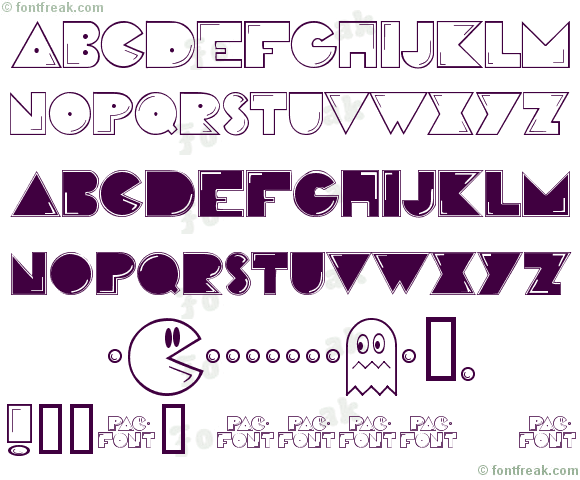
PacFont
About Pacfont
Pacfont, crafted by Font-a-licious Fonts, is a unique display font that effortlessly combines a playful aesthetic with a distinctive retro vibe. Released in 1998, this freeware typeface is characterized by its bold, rounded letterforms that evoke a sense of fun and nostalgia. The stroke weight is consistent throughout, providing a uniform appearance that enhances readability while maintaining a lighthearted charm. The spacing is generous, giving each character room to breathe, which adds to the overall playful nature of the font. Decorative elements are minimal, allowing the essence of Pacfont to shine through without overwhelming the design.
This versatile font is perfect for a variety of creative applications. It shines in settings such as children's event flyers, where its whimsical style can capture the attention of parents and kids alike. Additionally, Pacfont works wonderfully for restaurant menus, especially those with a casual, family-friendly atmosphere, as it can evoke warmth and approachability. It is also well-suited for branding projects aimed at small businesses, particularly those in the food and entertainment industries, where a memorable and inviting typeface can make a significant impact. Graphic designers will find Pacfont particularly advantageous for creating eye-catching social media graphics and promotional materials.
Targeted primarily at graphic designers, small business owners, and content creators, Pacfont is a valuable addition to anyone's typography toolbox. Its accessible freeware license makes it easy to incorporate into various projects without the worry of licensing fees. Pacfont stands out due to its unique blend of charm and versatility, allowing it to adapt seamlessly to various contexts while maintaining a distinctive personality. For those looking to inject a dose of fun and creativity into their designs, the Pacfont font free download is an excellent choice that will elevate any project.